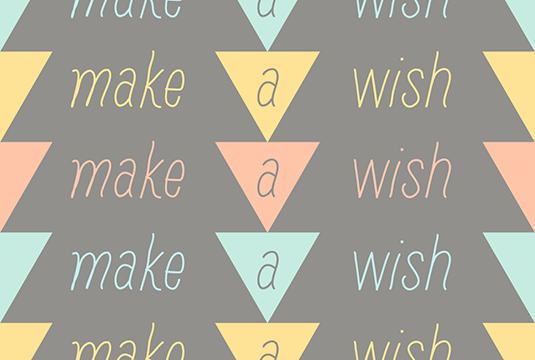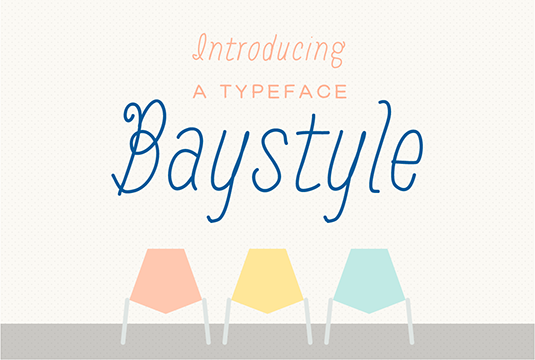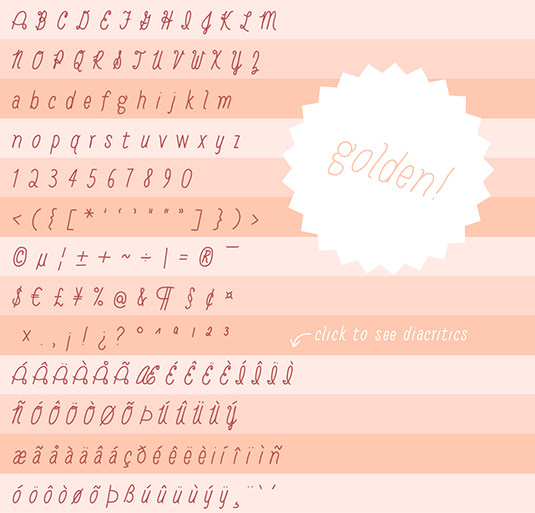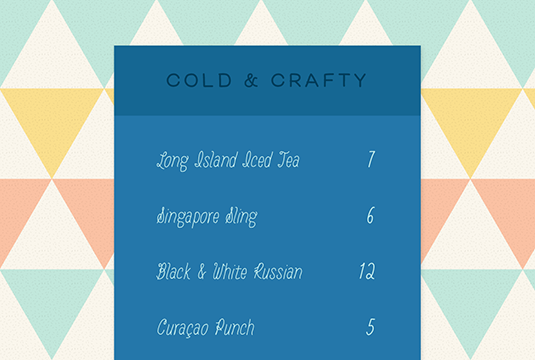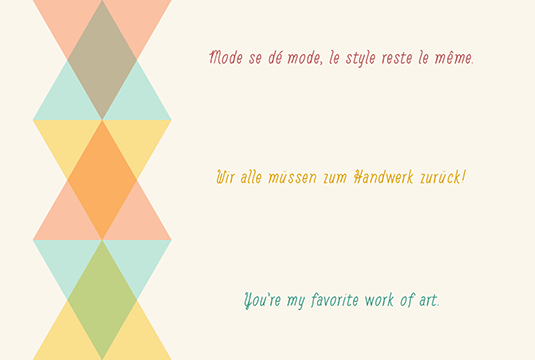
Font of the day: Baystyle
Each day of the week we showcase one of our favourite fonts – today it's Baystyle by Joseph Ekloff.
Baystyle by Joseph Ekloff
Today's showcased typeface is Baystyle, created by Joseph Ekloff; a neat blend of hand lettering and scripty italic characters.
Creator Ekloff has gone as far as offering a Twitter bio for his font: "Put me in a room and I will bring everything together. Throw me at your biggest challenge and hear me sing." Make of that what you will… Other things you could make with Baystyle include menus, flyers, artisan makery signage, and headlines and pull-quotes for lifestyle blogs and indie zines.